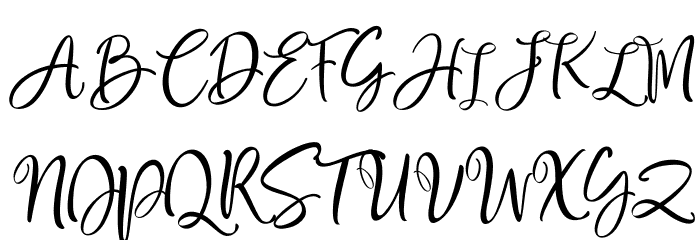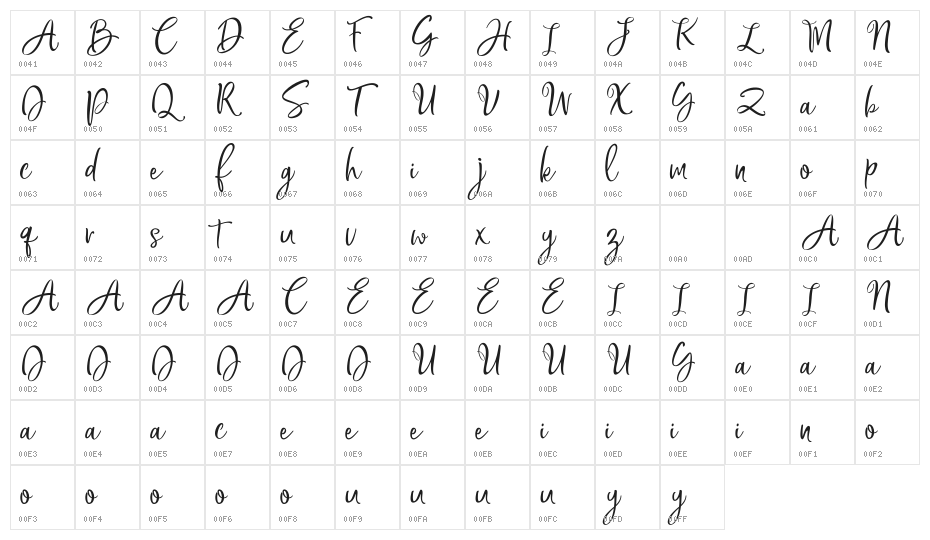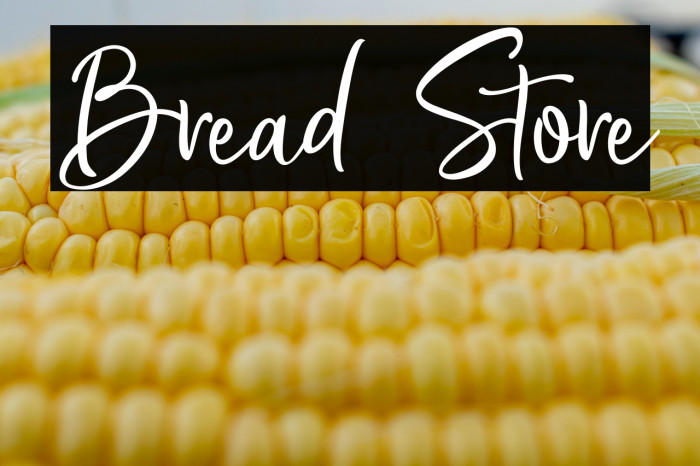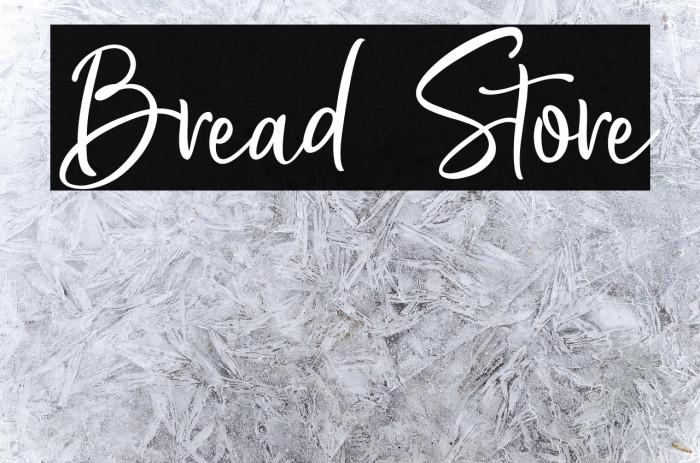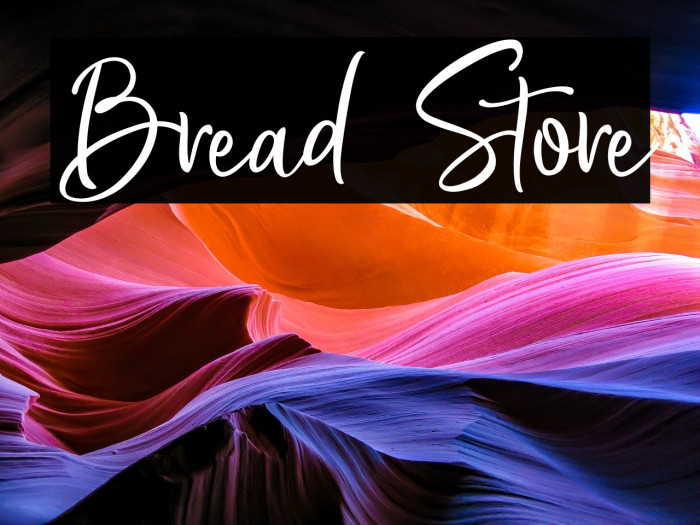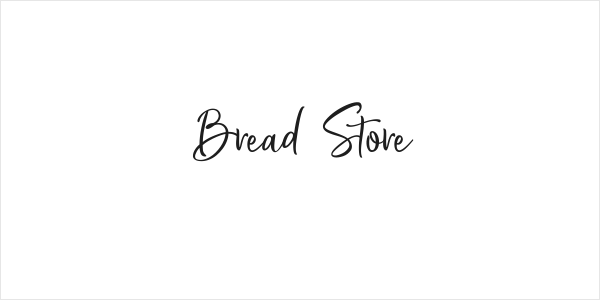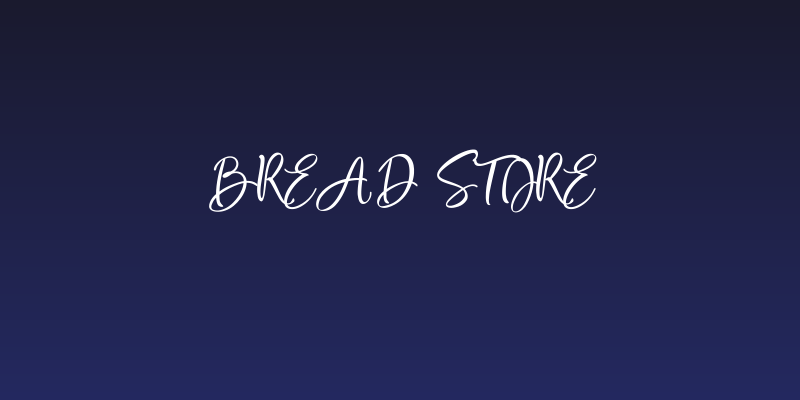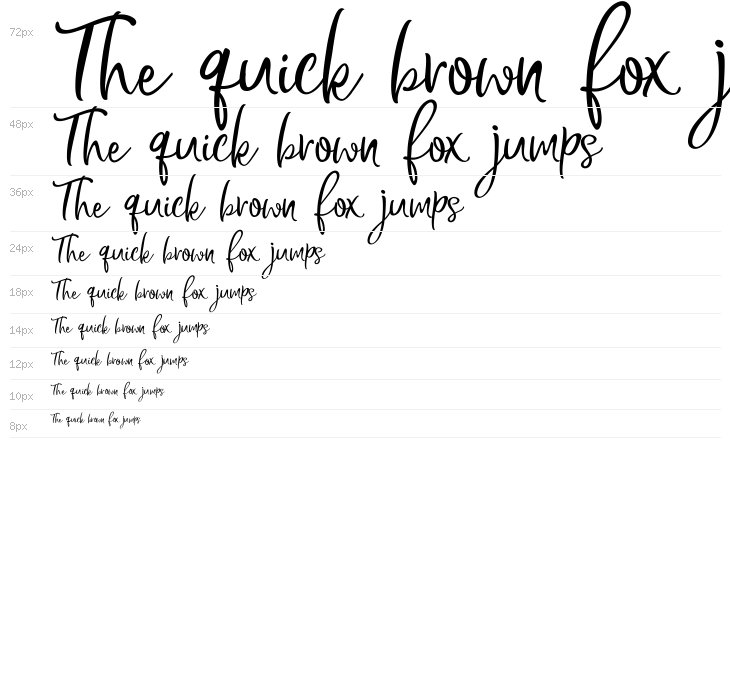
Bread Store Font
Bread Store Description
This font features an elegant and flowing script style, characterized by its cursive and interconnected letterforms. The uppercase letters exhibit a graceful and sophisticated appearance, with smooth curves and loops that add a sense of fluidity. The lowercase letters maintain a consistent style, with a slightly more compact form that complements the uppercase. The numbers and special characters are designed to match the overall aesthetic, ensuring a cohesive look across all text. This font's design is both decorative and legible, making it suitable for a variety of creative applications.
| Proposed Projects | Ideal for wedding invitations, branding, greeting cards, and elegant packaging designs. |